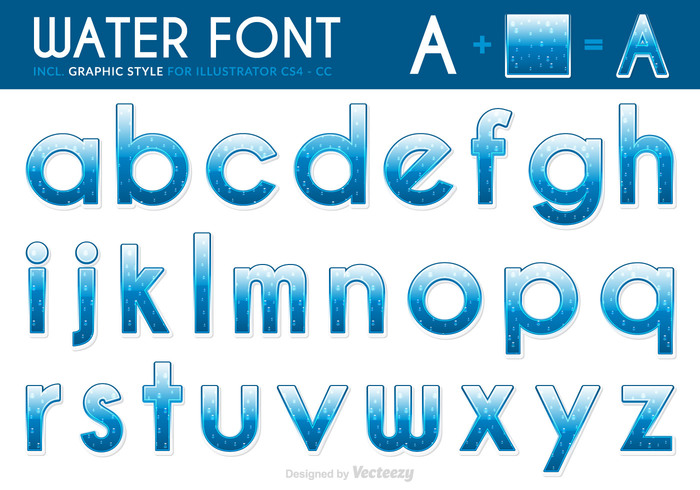
Free Vector Water Font With Drops 107089
Free vector water letters with water drops. You'll find the graphic style for illustrator CS4 and higher in the eps and also the link to used free font. You can use the graphic style in any font and shape.